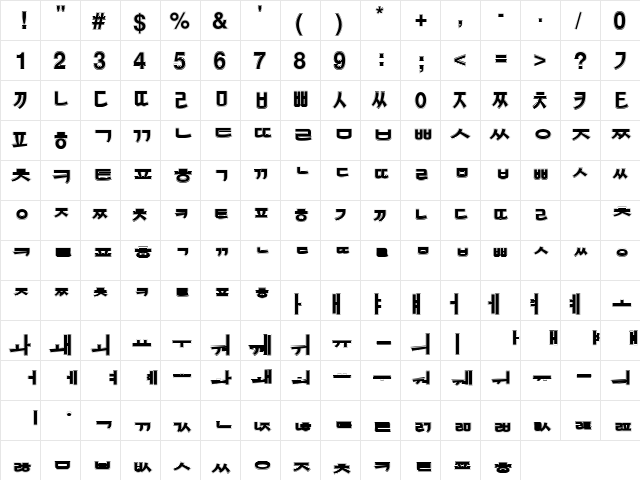
KoreanCollegeSSK Regular Font Preview
KoreanCollegeSSK Regular
KoreanCollegeSSK Regular Font Details
Design Context for KoreanCollegeSSK Typeface
KoreanCollegeSSK has the bold swagger of sports branding: strong, assertive letterforms designed to dominate headlines and jerseys alike.
Built for sports team identities, athletic apparel, event posters, and high-energy promotional material.
Pro Tip: KoreanCollegeSSK thrives on contrast — try it large, bold, and tight against a clean background for maximum visual impact.